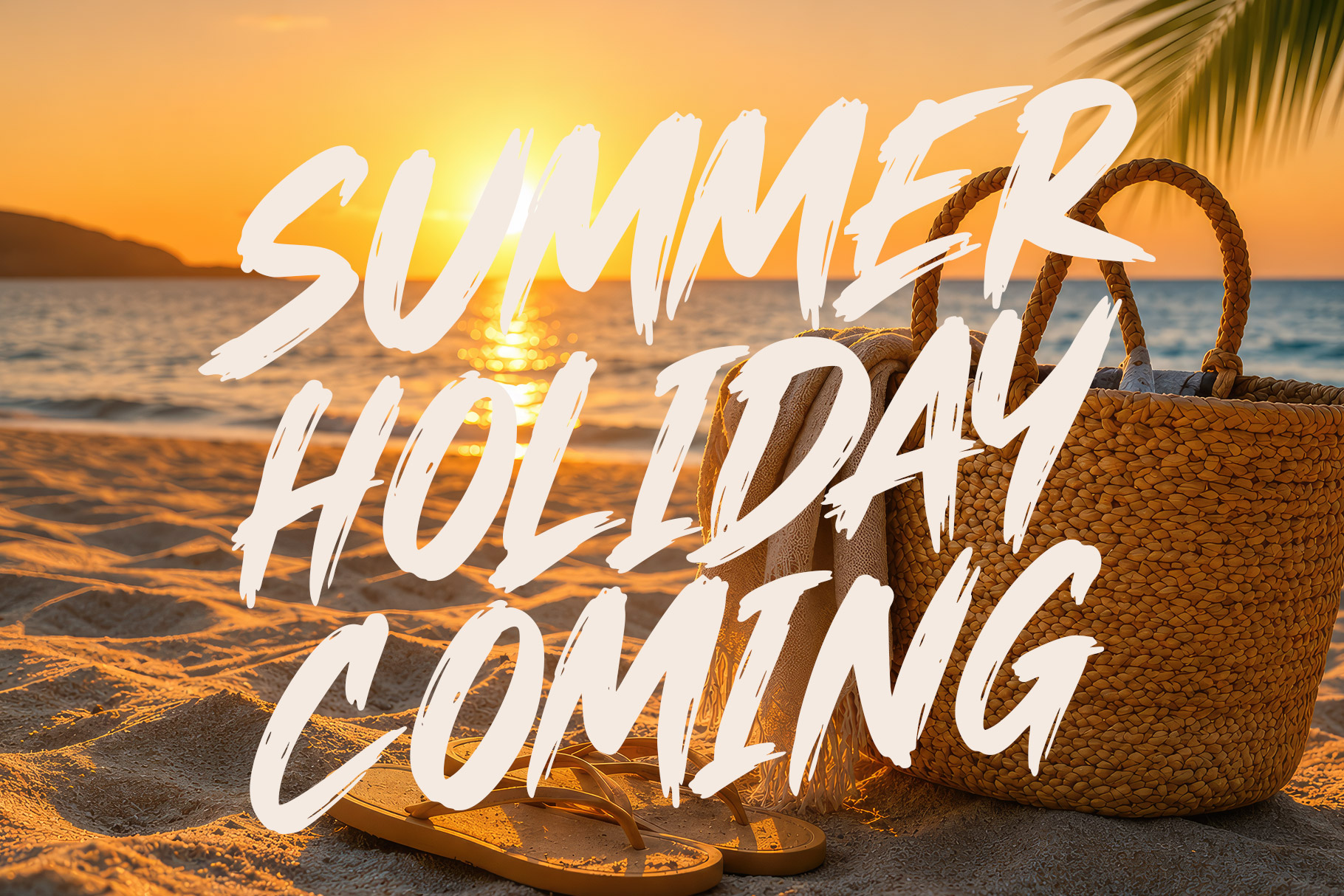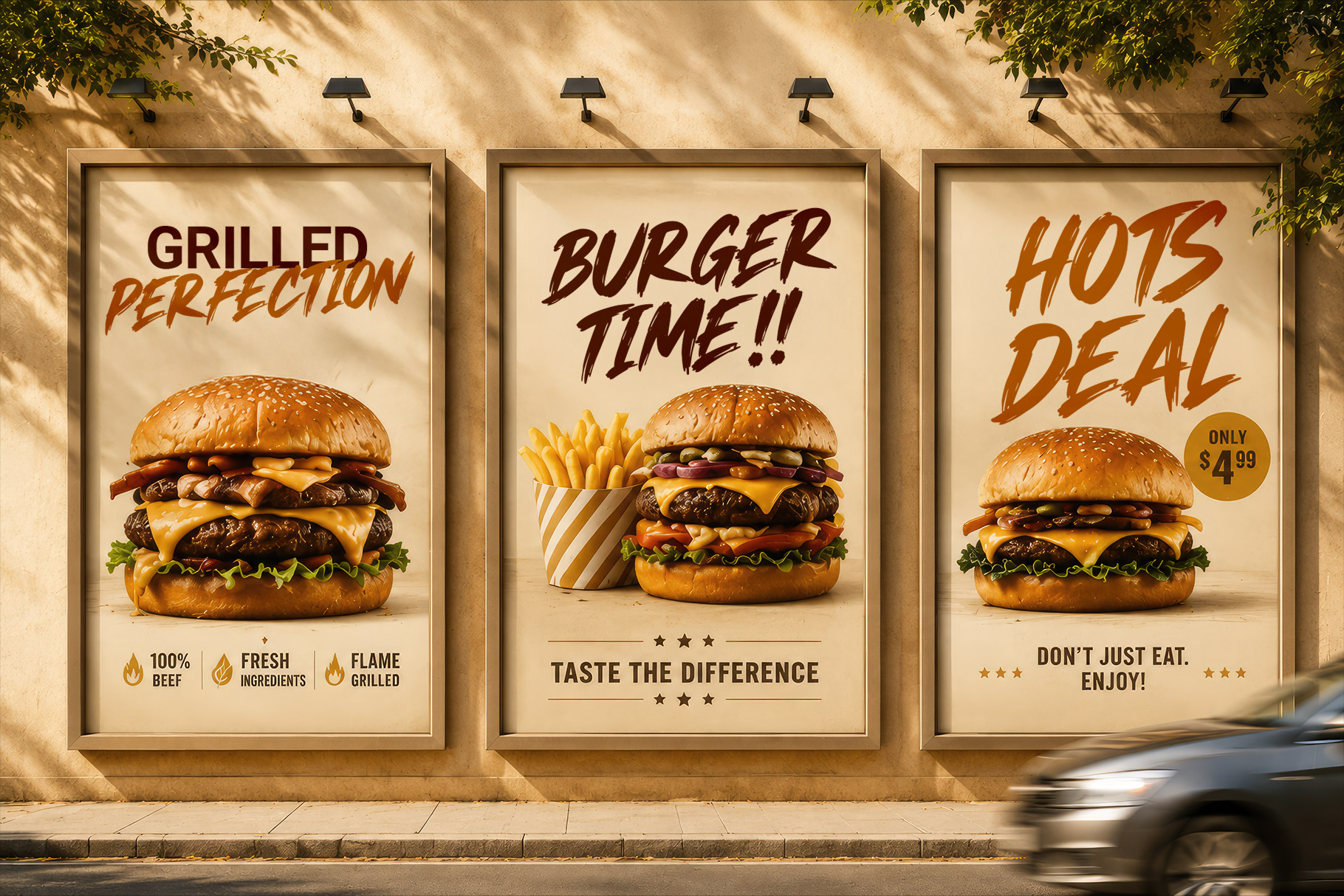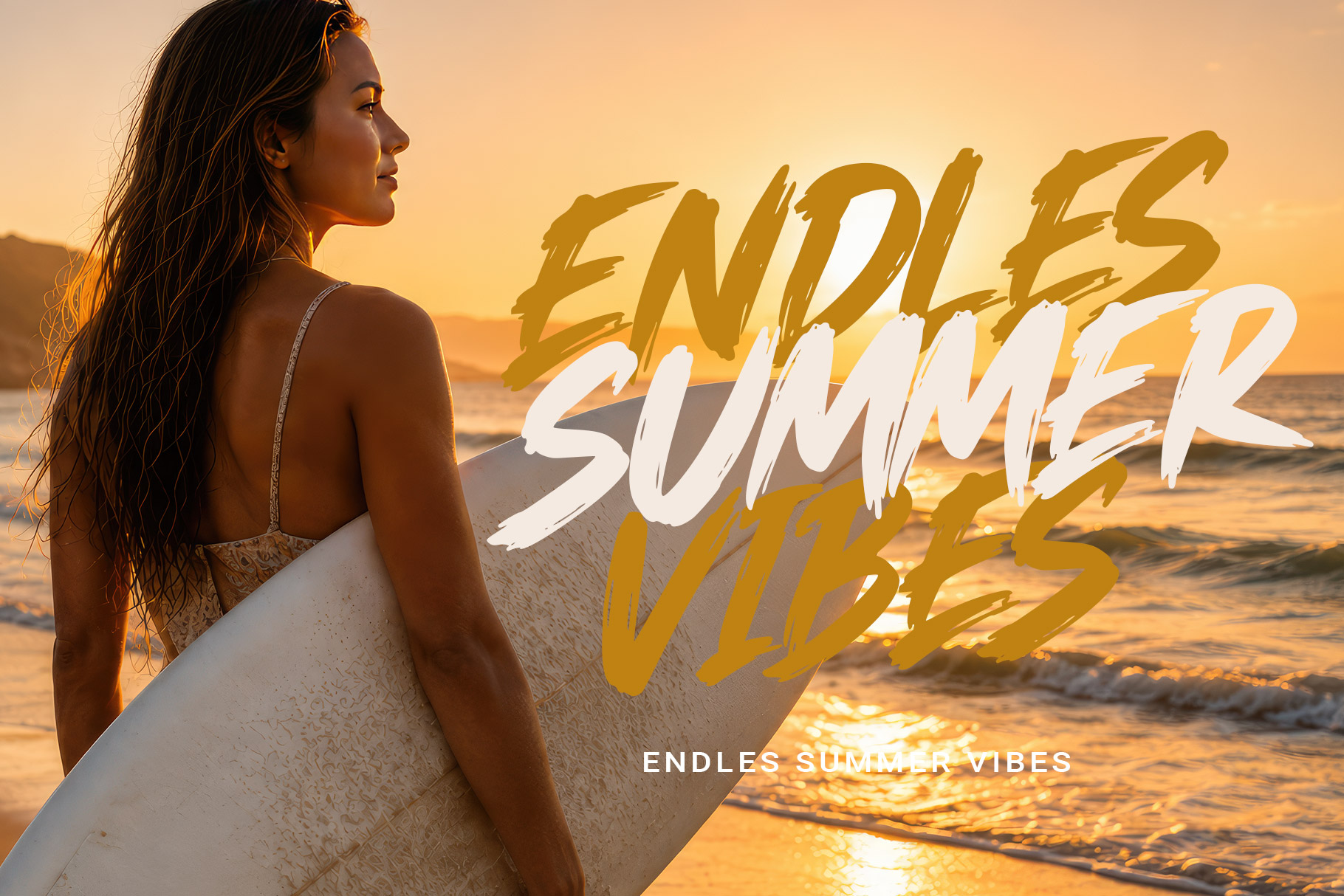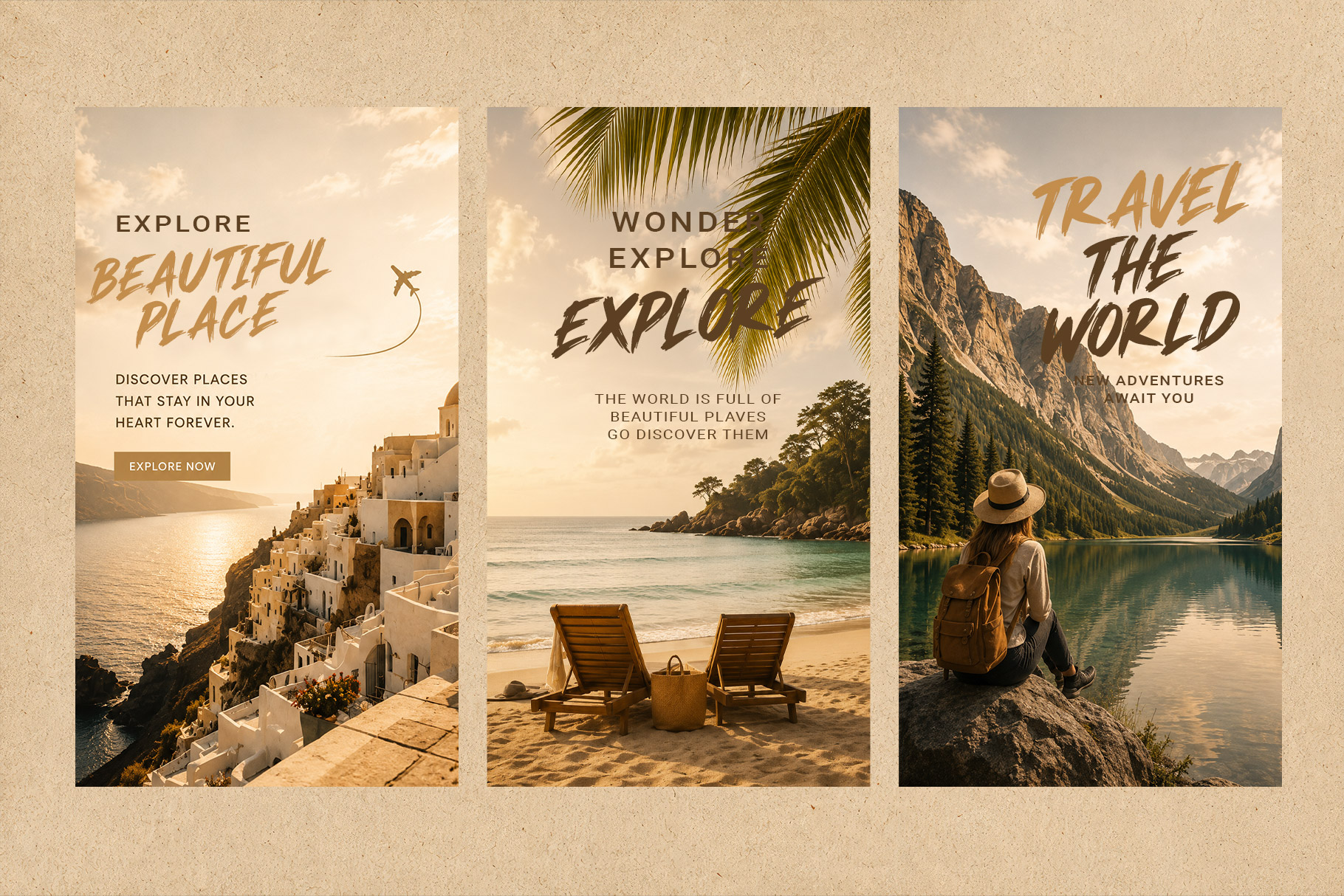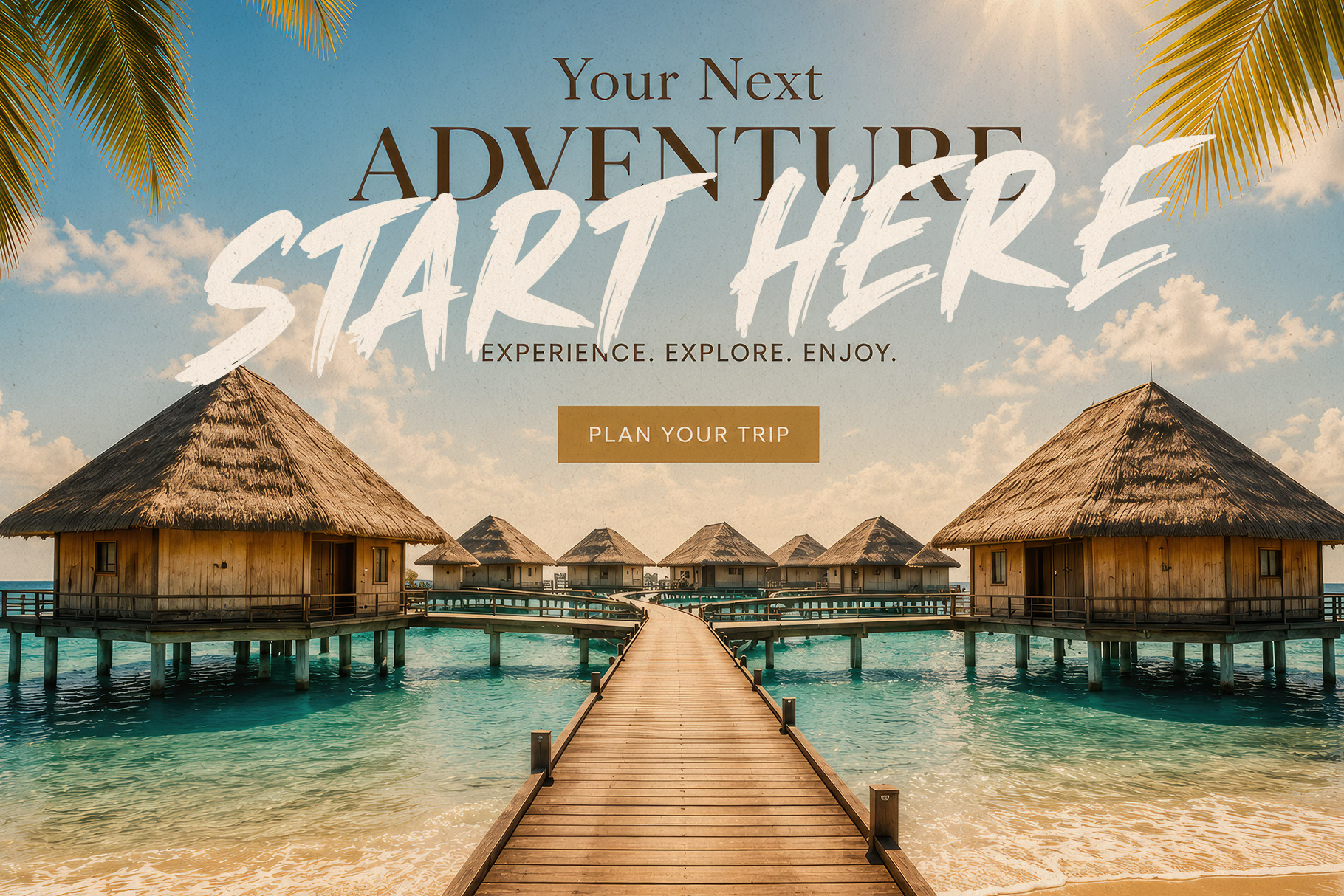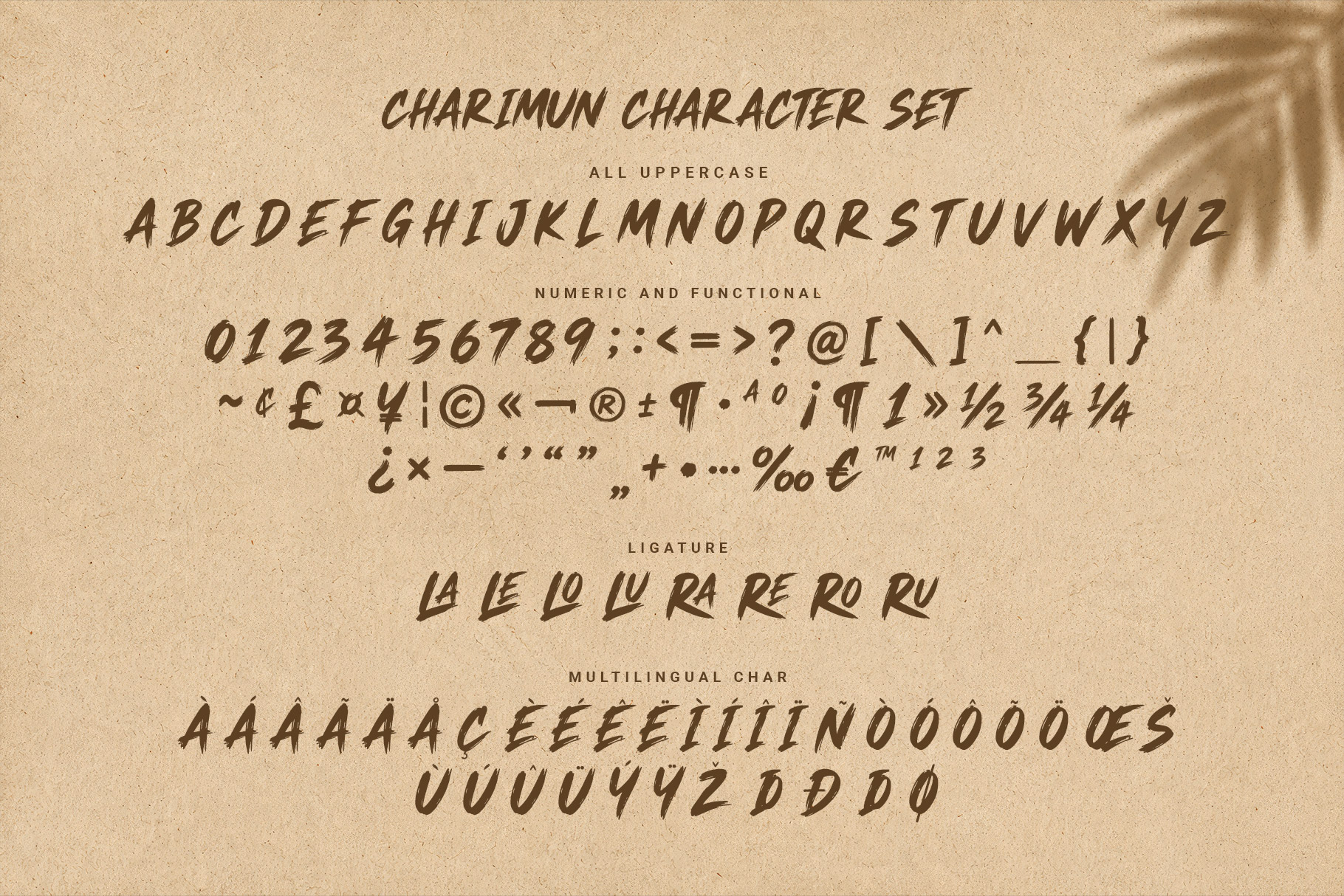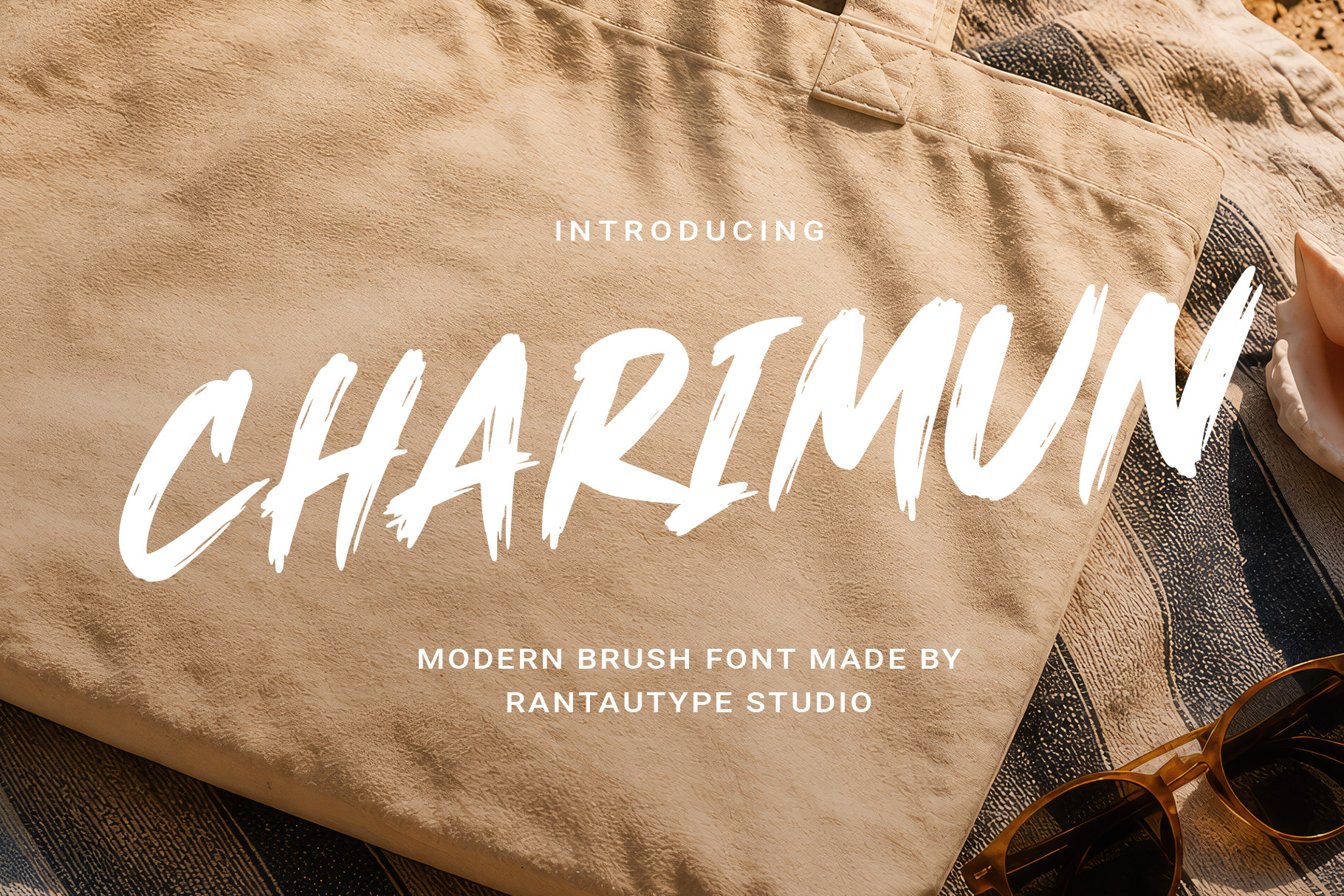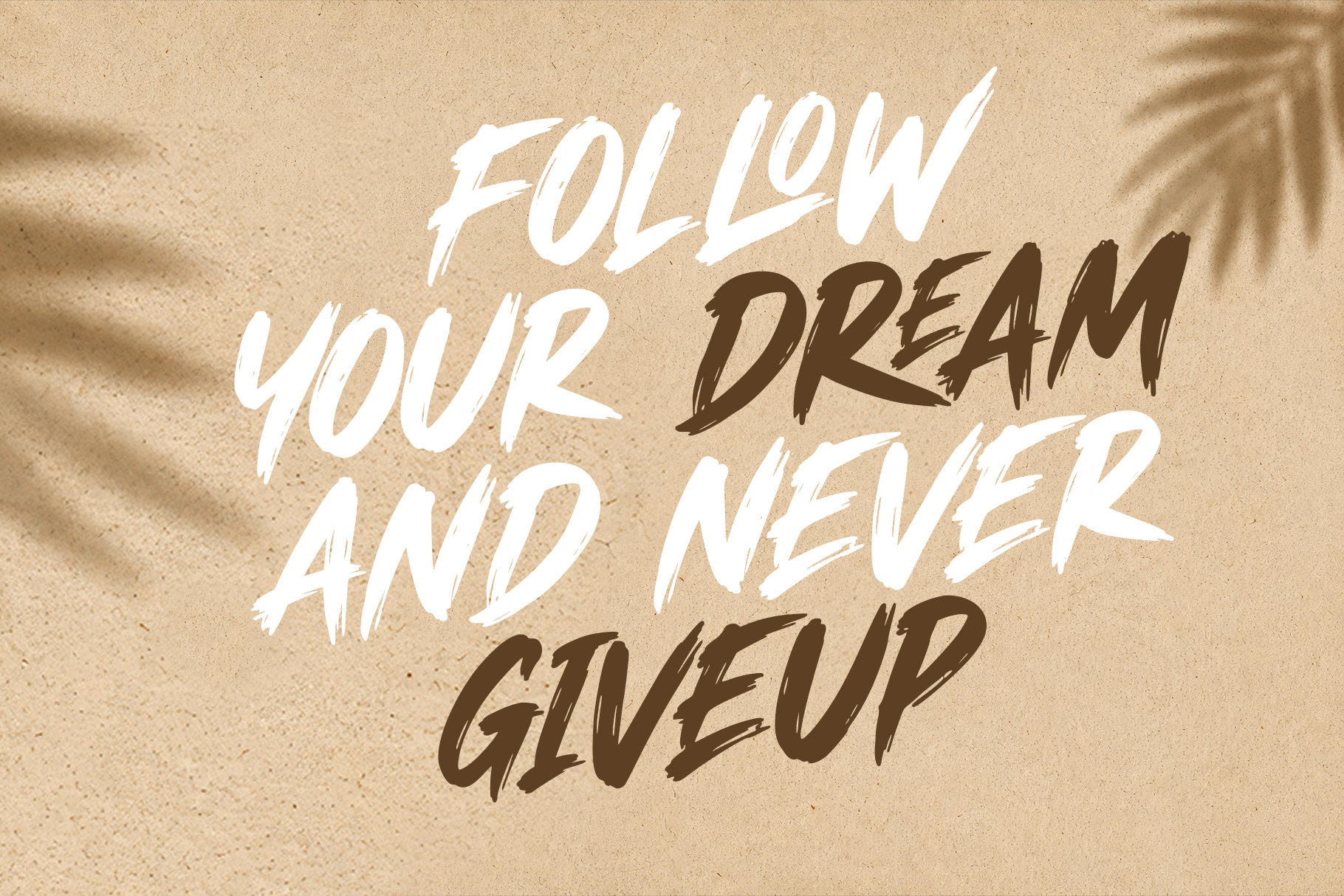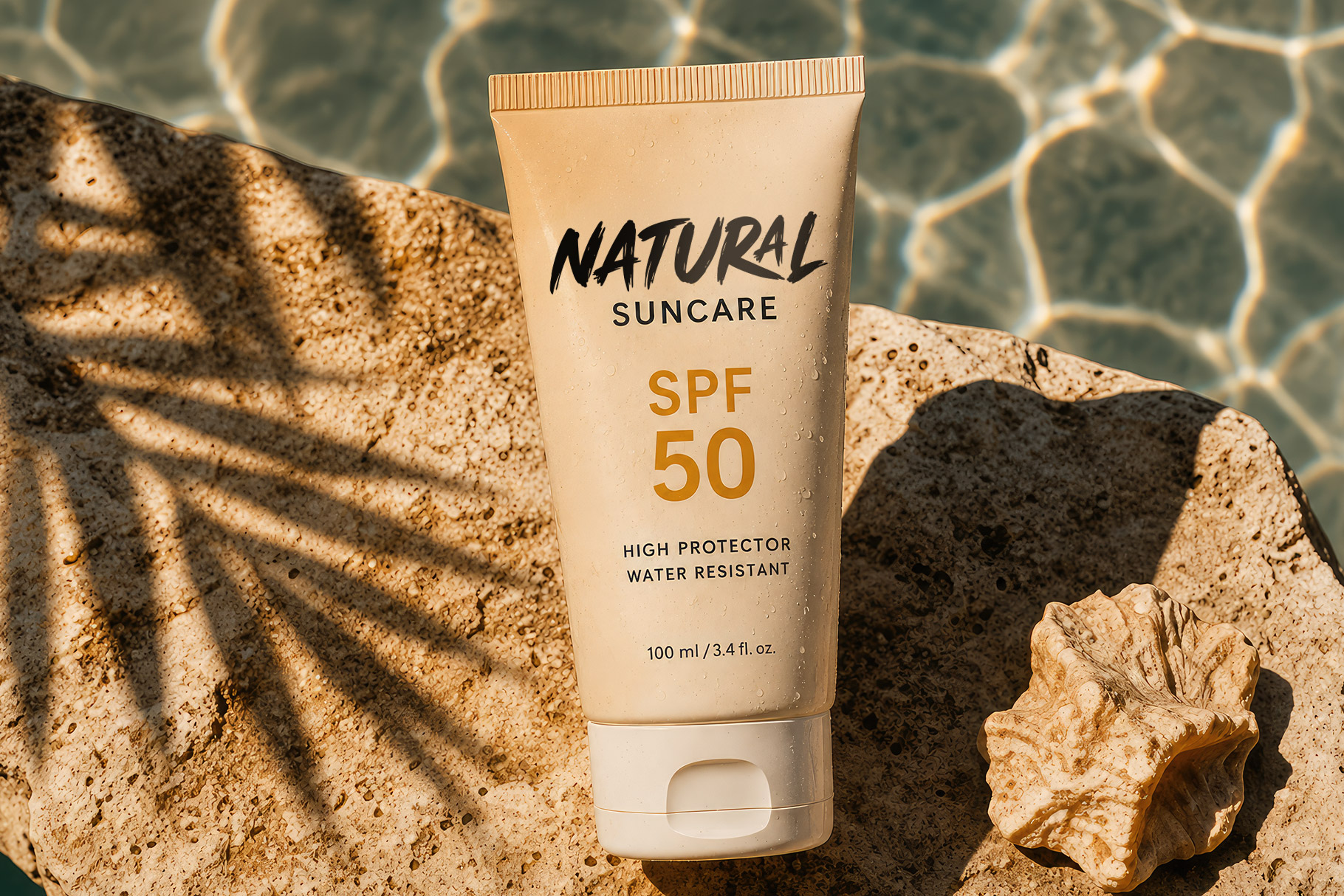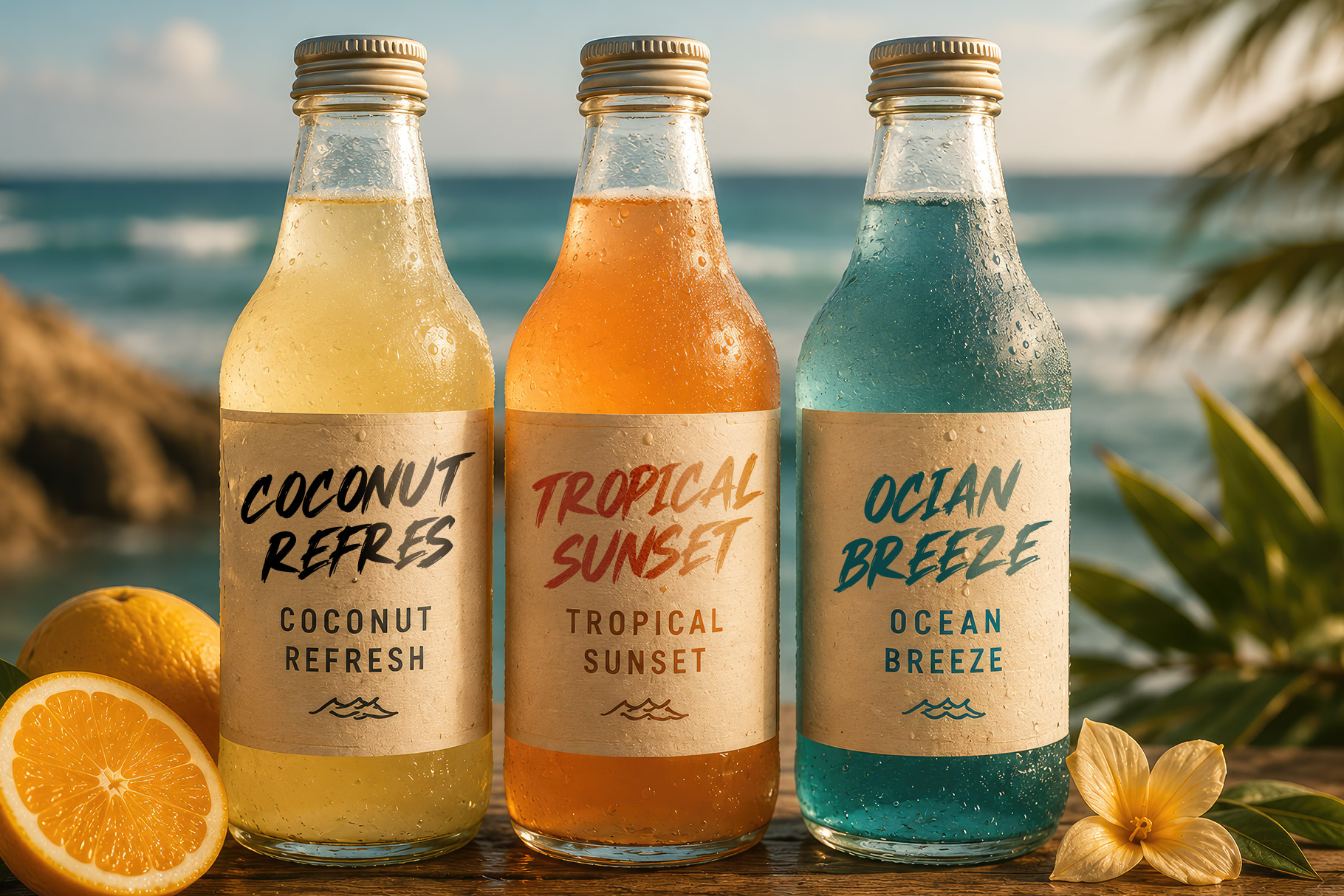
Charimun
Charimun is modern brush font showcases a bold, energetic, and expressive hand-painted style that instantly captures attention. Charimun conveys a sense of adventure, freedom, and confidence, making it an excellent choice for projects that require a powerful visual impact. Its rough brush texture brings a feeling of spontaneity and creativity,
Charimun is a perfectly choice for any creative endeavor, creating, modern, lifestyle design such as logotype, title, cover, branding, display and magazine, social media posts, advertisements, printed quotes, product packaging, corporate brand, product designs, labels, photography, watermarks, special events and any other project with modern touch.